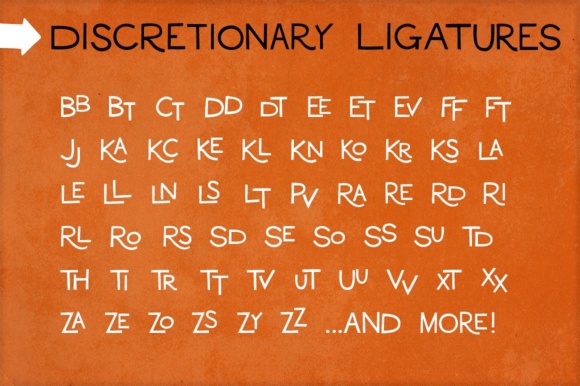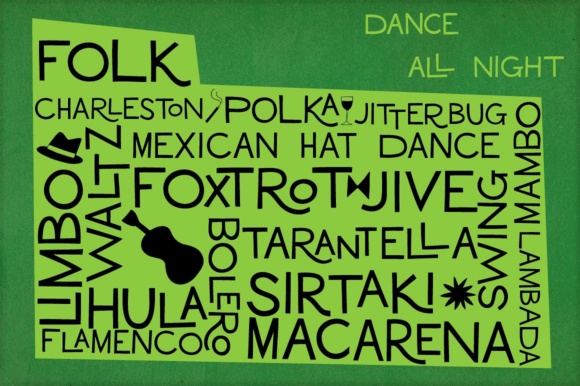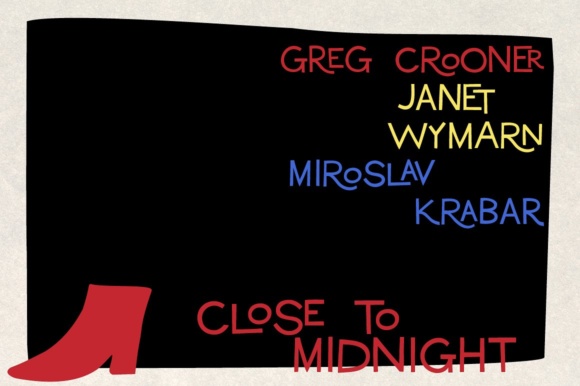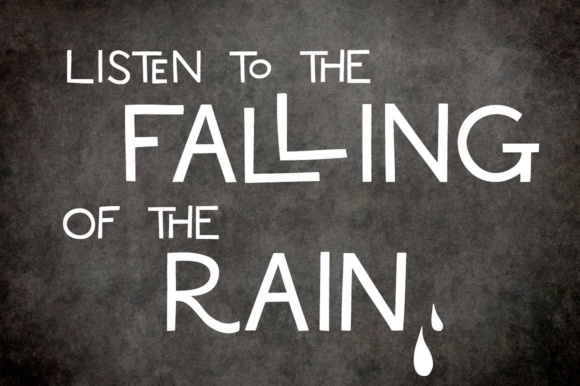
When Inspiration Strikes
Have you ever been working on a design project, and suddenly a font catches your eye? It’s like the missing piece falls into place, and your entire creative vision shifts. For designers, finding that perfect font can be a game-changer. And that’s exactly what happened with the creation of the Bassanova Font, a dynamic display font inspired by the iconic lettering on the “Love in the Afternoon” movie poster by Saul Bass.
The Bassanova Font offers four versions for each letter that change automatically, giving it a unique handlettered feel. This versatile font captures the essence of Saul Bass’s minimalist yet distinct style, making it a valuable asset for designers looking to add a touch of sophistication to their projects.
Whether you’re working on a logo, title sequence, or any other design that requires a dash of elegance, the Bassanova Font is sure to impress.
Bassanova Font Key Features
- Unique Characteristics: Bassanova Font features a unique blend of modern and vintage elements, with a distinctive geometric shape and subtle texture, giving it a distinctive look.
Bassanova Font Review
I recently had the chance to work with the Bassanova font, and I must say it’s a unique and interesting addition to any design project. Here are my honest thoughts on what works well and what doesn’t.
- Unique Character: Bassanova has a distinct personality that sets it apart from other sans-serif fonts. Its bold, geometric lines and rounded edges make it perfect for creating a modern and edgy look.
- Legibility: Despite its unconventional design, Bassanova is surprisingly legible, even at smaller font sizes.
- Flexibility: Bassanova can be used in a wide range of projects, from logos and branding to digital products and advertising.
- Overuse: Bassanova’s bold lines and geometric shapes can become overwhelming if used too extensively. It’s essential to balance its use with other fonts to avoid visual fatigue.
- Lack of Versatility: While Bassanova is great for modern designs, it may not be the best choice for traditional or classic projects. Its bold lines can feel out of place in more conservative settings.
- Font Weight Limitations: Bassanova’s font weights are limited, which can make it challenging to create complex typography or adjust the font to suit different design needs.
Overall, Bassanova is a great addition to any designer’s toolkit, offering a unique and modern look that can elevate any design project. However, it’s essential to use it thoughtfully and balance its bold lines with other fonts to avoid overuse and visual fatigue.
Getting the Most Out of Bassanova Font
Here are some tips for getting the most out of Bassanova font:
- Use it for creative and artistic projects, such as graphic design or typography.
- Experiment with different font sizes and styles to achieve a unique look.
- Combine Bassanova font with other fonts for a layered and interesting design.
Bassanova font is commonly used for:
- Graphic design projects.
- Pixel art graphics for a nostalgic feel
- Warm color scheme with golden accents for a retro vibe
Q: Can I customize the Bassanova Font for my specific design needs?
Yes, the Bassanova Font is designed to be highly customizable. You can adjust font sizes, colors, and styles to fit your specific design requirements using most design software applications.